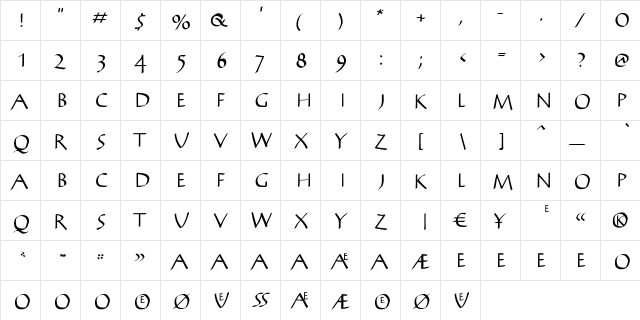
AntiKwa Regular
Design Context for AntiKwa Typeface
AntiKwa takes a measured approach to typography — its balanced proportions and neutral character make it a reliable workhorse for both digital and print work.